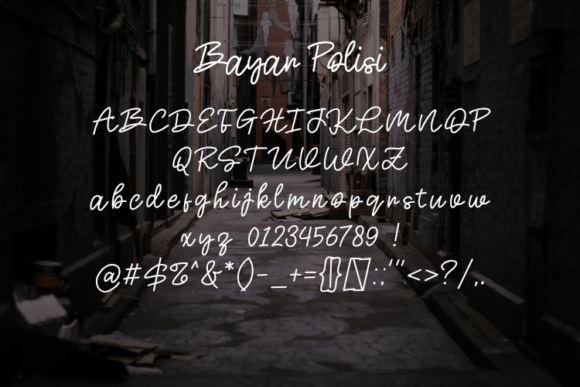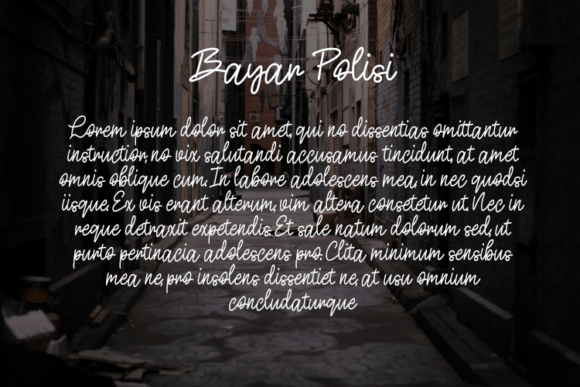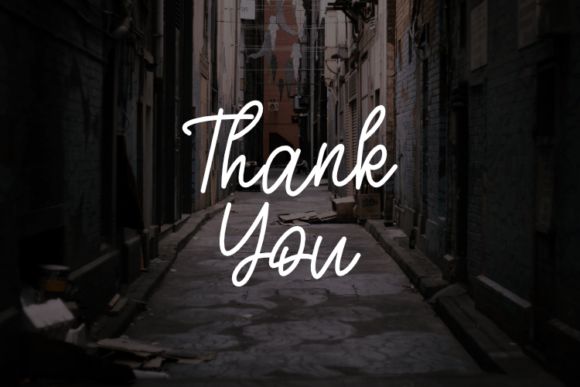
Bayar Polisi Font: The Perfect Choice for Your Design Projects
Are you a designer or crafter looking for a font that can elevate your creative projects to the next level? Look no further than the Bayar Polisi Font. This font is the perfect choice for your various design projects, ranging from trendy clothes and shirts to other creative products. Designed with the use in mind, this font offers an attractive and easy to read appearance, so that your message is conveyed clearly and effectively.
What Makes Bayar Polisi Font Stand Out?
The Bayar Polisi Font is a unique and stylish font that is sure to make your designs stand out from the crowd. Its attractive and modern design makes it perfect for a wide range of projects, from fashion designs to marketing materials. The font is easy to read, even at small sizes, making it ideal for use on a variety of products, such as t-shirts, stickers, and more.
Key Features of Bayar Polisi Font
• Attractive and Modern Design: The Bayar Polisi Font has a sleek and modern design that is sure to catch the eye.
• Easy to Read: The font is optimized for readability, making it perfect for use on a variety of products.
• Versatile: The Bayar Polisi Font can be used on a wide range of projects, from fashion designs to marketing materials.
• High-Quality: The font is designed to deliver high-quality results, even at small sizes.
Why Designers and Crafters Love Bayar Polisi Font
Designers and crafters love the Bayar Polisi Font for its versatility and ease of use. The font is perfect for a wide range of projects, from designing trendy clothes and shirts to creating marketing materials and more. The font is also easy to pair with other fonts, making it a great addition to any designer’s toolkit.
How to Use Bayar Polisi Font in Your Designs
Tips for Getting the Most Out of Bayar Polisi Font
• Use it with a Bold Font: Pair the Bayar Polisi Font with a bold font for a striking contrast.
• Experiment with Different Sizes: The Bayar Polisi Font looks great at a variety of sizes, so don’t be afraid to experiment.
• Use it for Headings and Body Text: The Bayar Polisi Font is perfect for use in both headings and body text.
Font Name Bayar Polisi Font
Author Eric Kusuma
In conclusion, the Bayar Polisi Font is a versatile and stylish font that is perfect for a wide range of design projects. Its attractive and easy to read appearance makes it ideal for use on a variety of products, from trendy clothes and shirts to marketing materials and more. Whether you’re a designer or crafter, the Bayar Polisi Font is a great addition to your toolkit.
Bayar Polisi Font: The Perfect Choice for Your Next Project